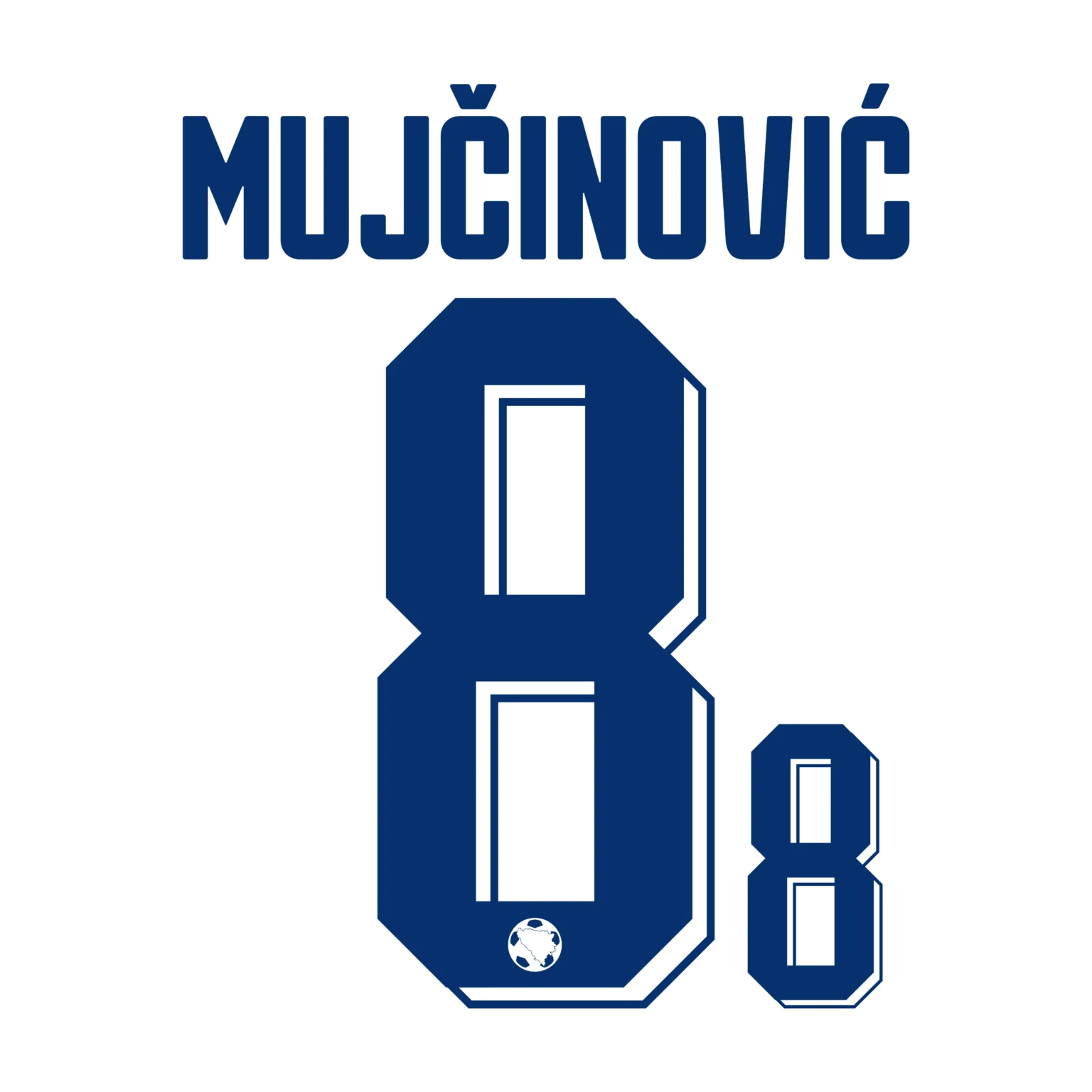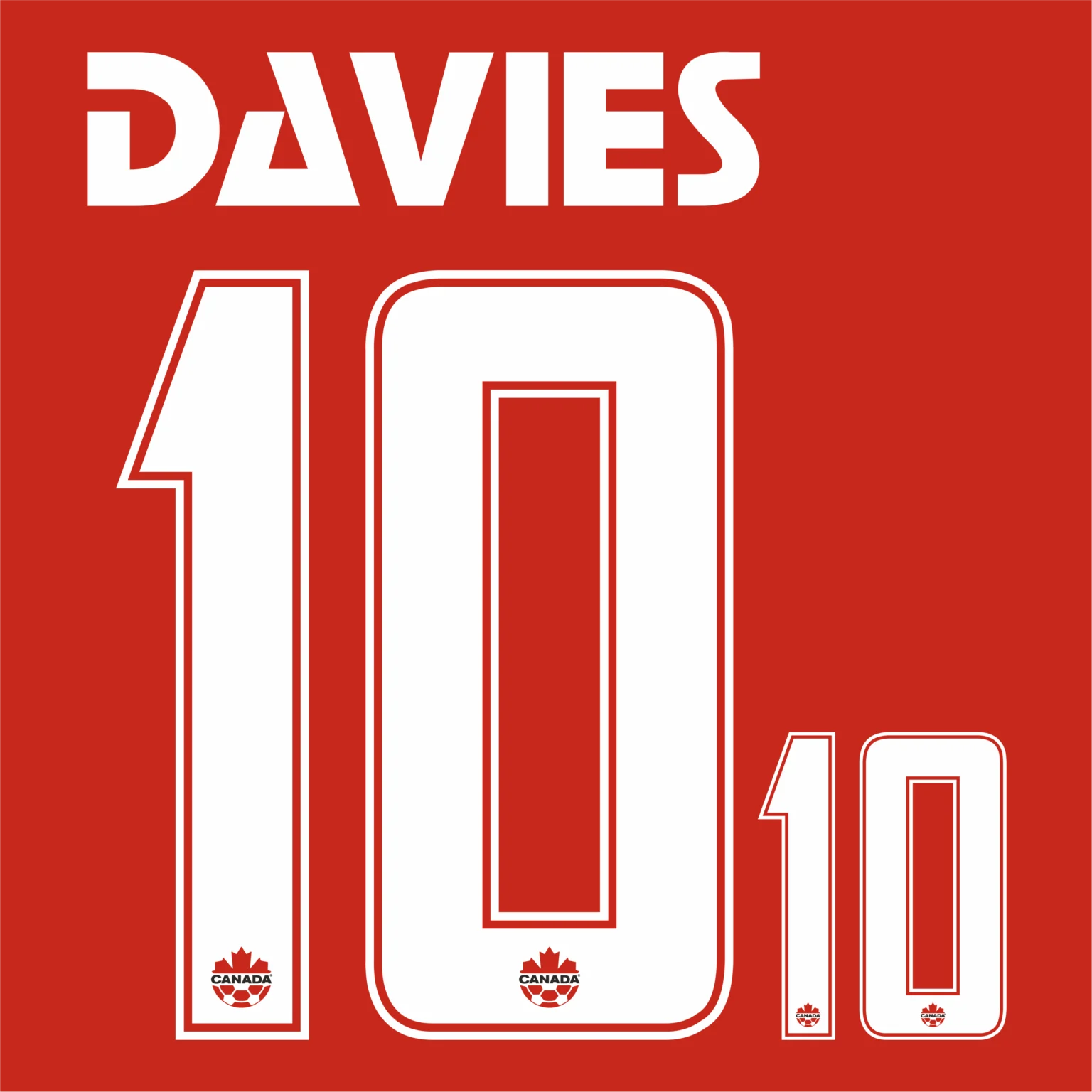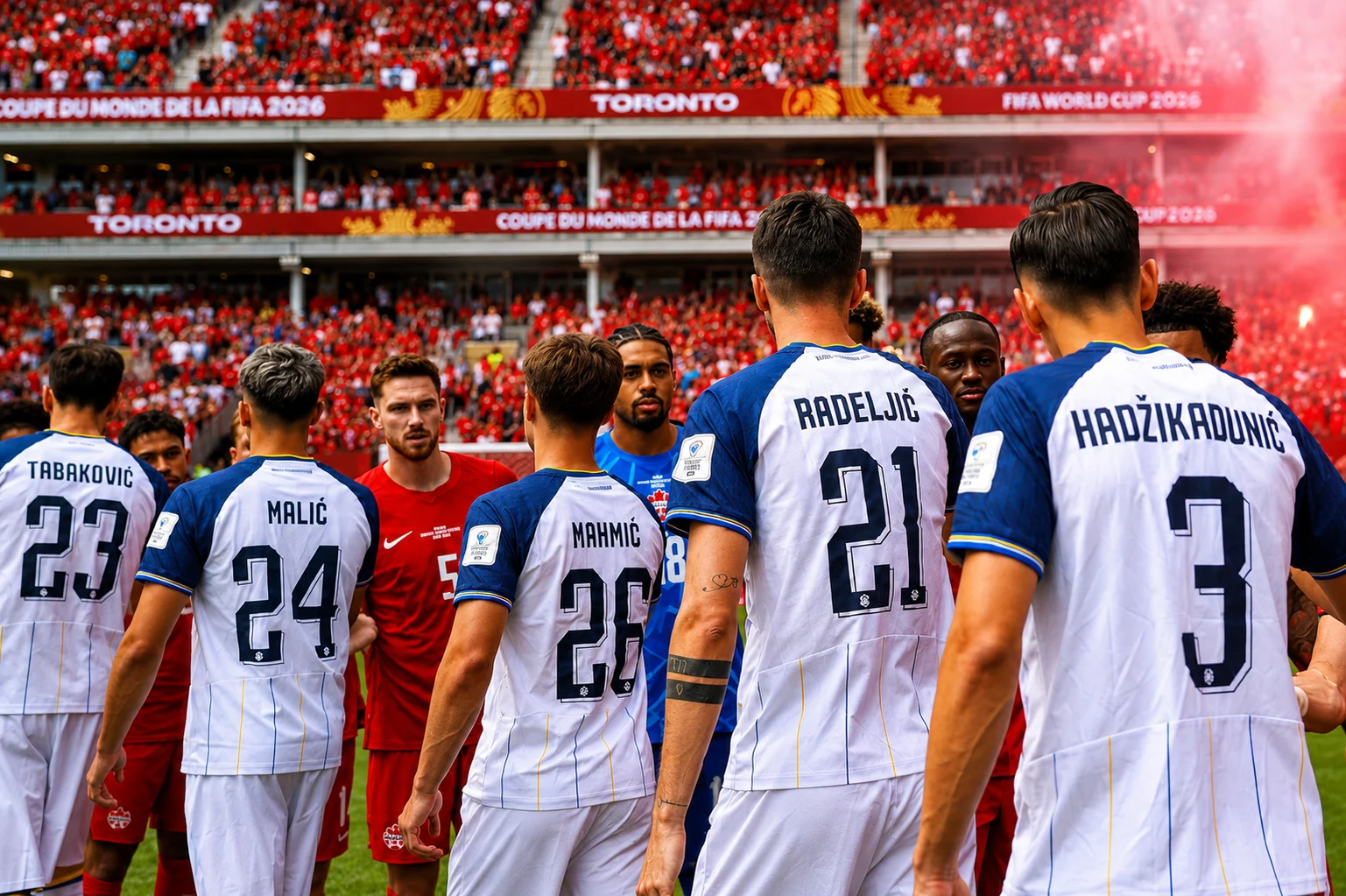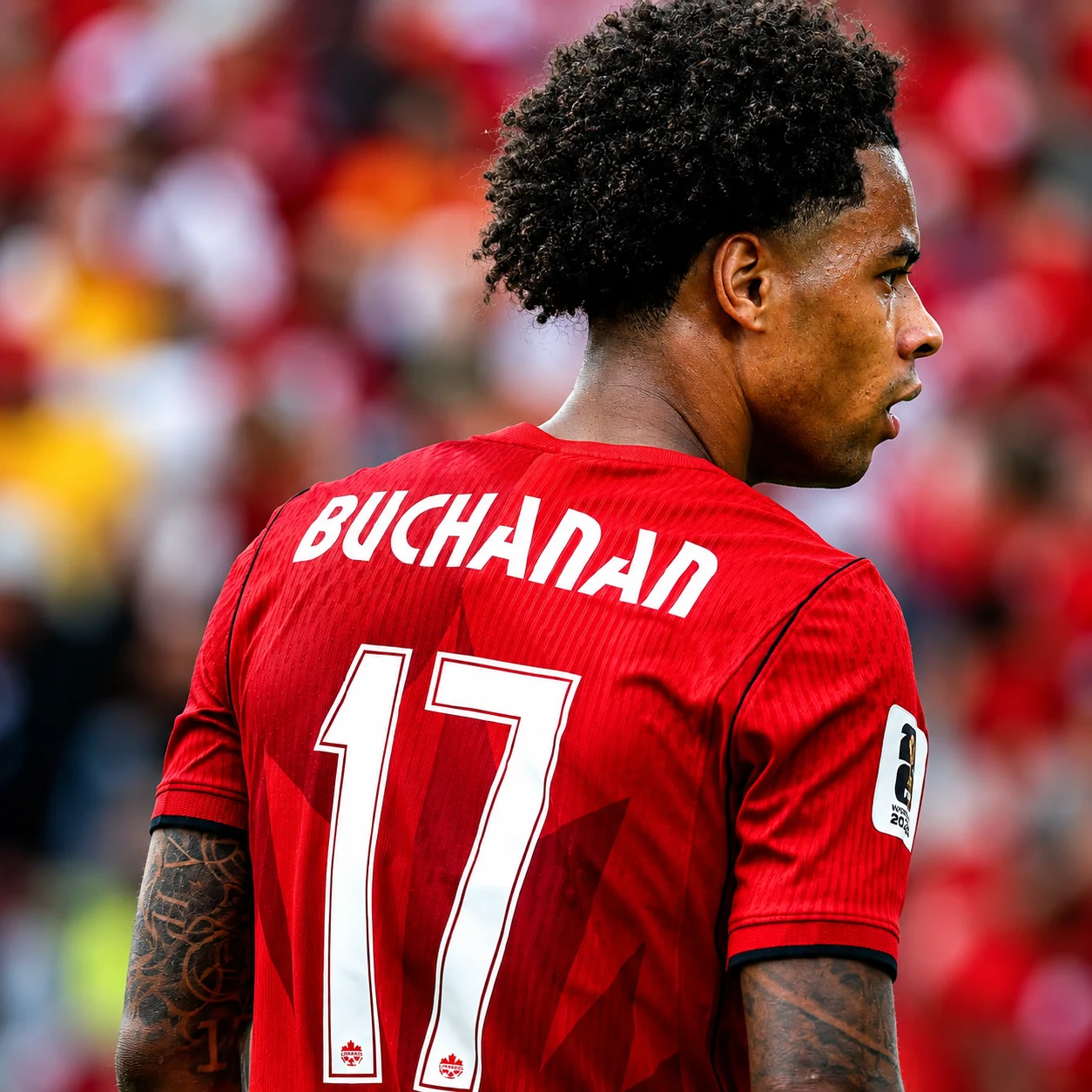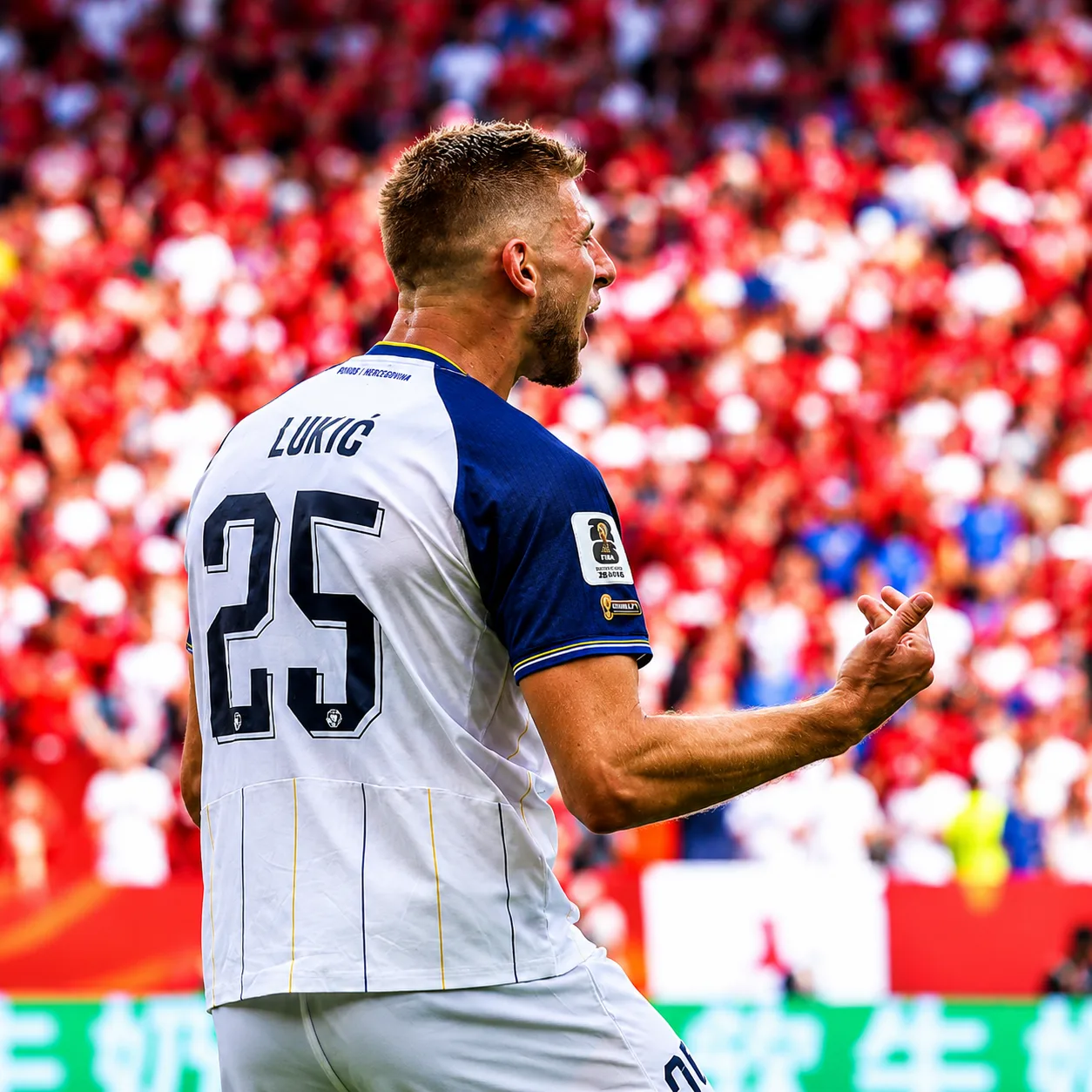
Canada vs Bosnia and Herzegovina 2026: 7 Underrated Truths About Canada’s Thrilling Historic Victory
Canada vs Bosnia and Herzegovina 2026
Canada vs Bosnia and Herzegovina 2026 produced an intense Group B clash on June 13, 2026 at BC Place Stadium in Vancouver. In their opening match of the 2026 FIFA World Cup, Canada secured a thrilling 2-1 victory over Bosnia and Herzegovina.
Bosnia took the lead through Ramic (42′), but Canada fought back with goals from Jonathan David (55′) and Tajon Buchanan (78′) in front of a passionate home crowd during this memorable Canada vs Bosnia and Herzegovina 2026 encounter.
Canada vs Bosnia and Herzegovina 2026
7 Underrated Truths:
1. Canada Finally Wins Their First World Cup Match on Home Soil.
After a disappointing campaign in Qatar 2022, Canada showed significant improvement in the Canada vs Bosnia and Herzegovina 2026 match. Jonathan David’s early second-half goal ignited the crowd at BC Place. Design Tip: Create a powerful nameset “DAVID 9” using Canada’s official 2026 nameset font.
2. Jonathan David – The Star Forward Who Delivered
Jonathan David was the standout performer in the Canada vs Bosnia and Herzegovina 2026 match. The clinical striker equalized with remarkable composure in the 55th minute, showcasing his world-class movement, positioning, and finishing ability. Throughout the game, he remained a constant threat to the Bosnia defense, creating multiple scoring opportunities and playing a pivotal role in Canada’s historic victory on home soil. His performance marked him as one of the brightest stars of Canada’s 2026 FIFA World Cup campaign.
Nameset Idea: “DAVID 9” or “JONATHAN 9” with Canada’s special 2026 national team font. This bold and modern typeface perfectly captures the dynamic energy of the player. It pairs excellently with Canada’s iconic red home kit featuring white and gold maple leaf accents, making it ideal for creating professional-looking custom jerseys, fan prints, and collector items.
Canada vs Bosnia and Herzegovina 2026
3. Tajon Buchanan’s Dramatic Winning Goal
Tajon Buchanan delivered a moment of pure magic in the Canada vs Bosnia and Herzegovina 2026 match by scoring the decisive goal in the 78th minute. With a swift and well-executed counter-attack, Buchanan broke through the Bosnia defense and finished calmly to give Canada the lead. The strike sent the home fans at BC Place Stadium into a frenzy of celebration, marking one of the most memorable moments of Canada’s historic home World Cup debut.
Design Opportunity: Use “BUCHANAN 11” with Canada’s official 2026 nameset font. This premium font beautifully captures the dynamic energy of the moment. Add thick outlines, subtle glow effects, or metallic accents to highlight the winning goal and create a powerful, eye-catching nameset for custom jerseys and collector items.
Canada vs Bosnia and Herzegovina 2026
4. Bosnia and Herzegovina Displayed Tough Balkan Spirit
Despite the defeat, Bosnia played with great discipline and fighting spirit. Ramic’s opening goal and experienced players like Miralem Pjanic created serious problems for the Canadian defense. Design Recommendation: Namesets such as “RAMIC 19” and “PJANIC 10” using Bosnia and Herzegovina’s special 2026 national team font. The font’s strong character complements Bosnia’s blue and yellow kit with classic Balkan-inspired patterns.
Canada vs Bosnia and Herzegovina 2026
5. Special Nameset Fonts for Each National Team
Both teams used their own premium and unique nameset fonts specially designed for the 2026 FIFA World Cup:
• Canada Home: Vibrant red with modern maple leaf motifs and white/gold details. Canada’s official 2026 nameset font features a bold, clean, and dynamic style that reflects the team’s North American energy.
• Bosnia and Herzegovina: Striking blue and yellow with classic Balkan-inspired design. Bosnia’s 2026 nameset font carries a strong, authoritative character that matches the team’s proud and resilient identity.
These specially crafted national team fonts are highly legible and extremely versatile — perfect for vinyl cutting, heat press, sublimation printing, and professional custom jersey design.
Canada vs Bosnia and Herzegovina 2026
6. Historic Home Debut Full of Emotion
This was Canada’s first-ever World Cup match as co-hosts in the Canada vs Bosnia and Herzegovina 2026 fixture. Playing on home soil at the iconic BC Place Stadium in Vancouver, the Canadian team delivered a memorable performance that will be etched in the history of the 2026 FIFA World Cup. The hard-fought 2-1 victory provided huge momentum for the tournament and created lasting memories for thousands of passionate Canadian supporters who filled the stands.
Canada vs Bosnia and Herzegovina 2026
7. The Power of Quality Namesets
This match once again proved how a well-crafted nameset using each team’s official font can immortalize heroic performances. Having access to these special national team fonts allows designers to produce consistent, authentic, and professional-looking custom kits for collectors and fans.